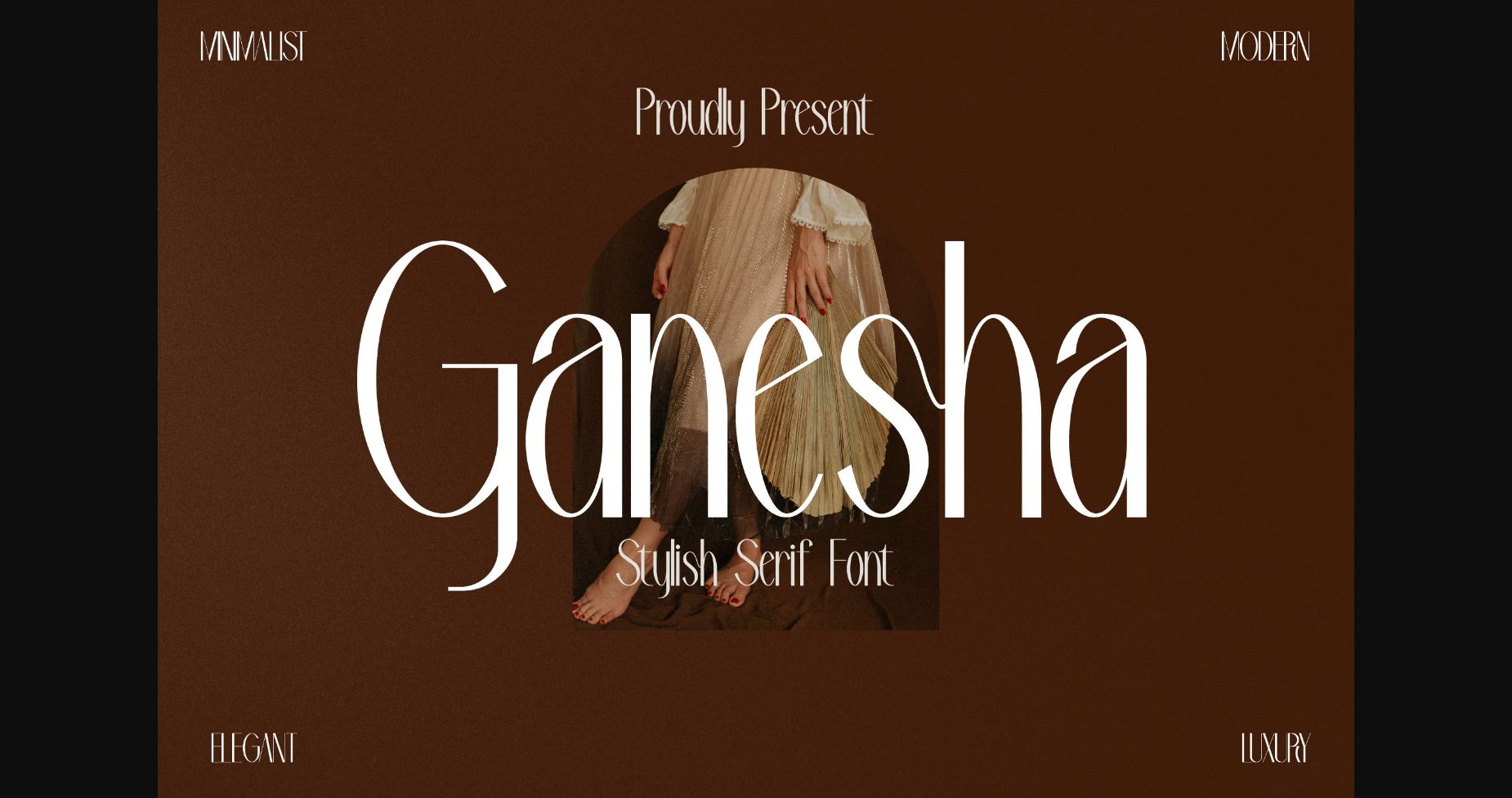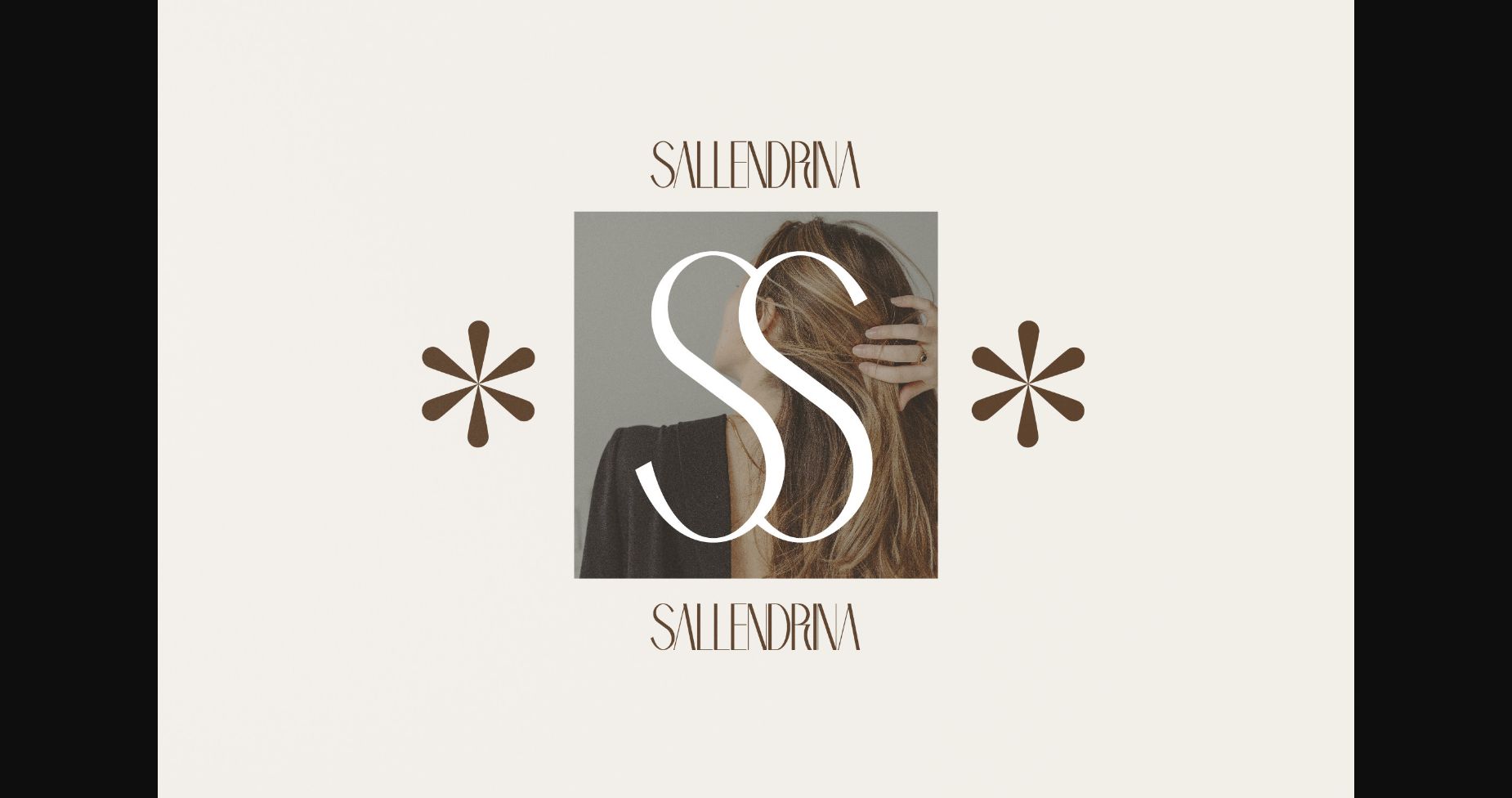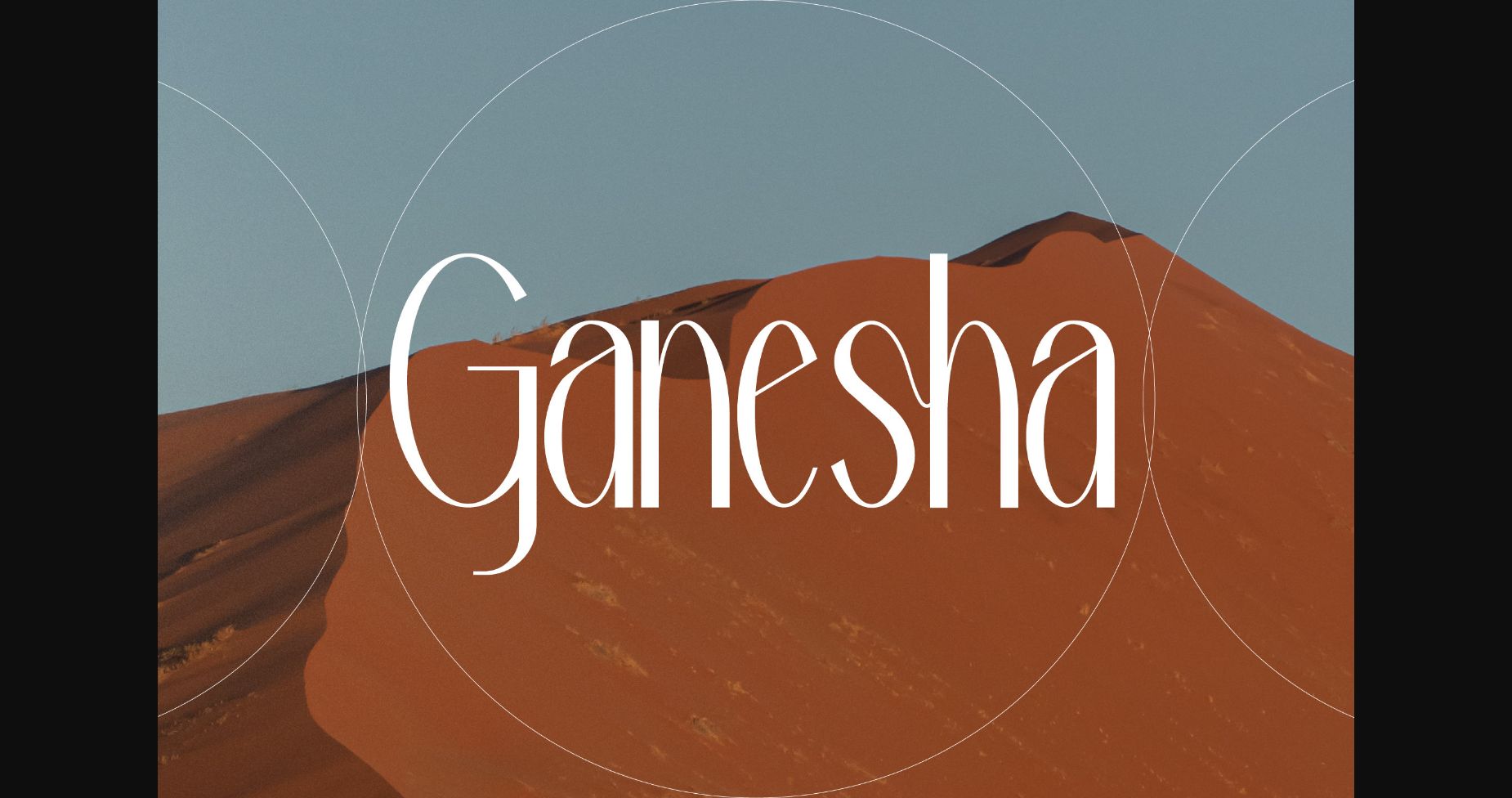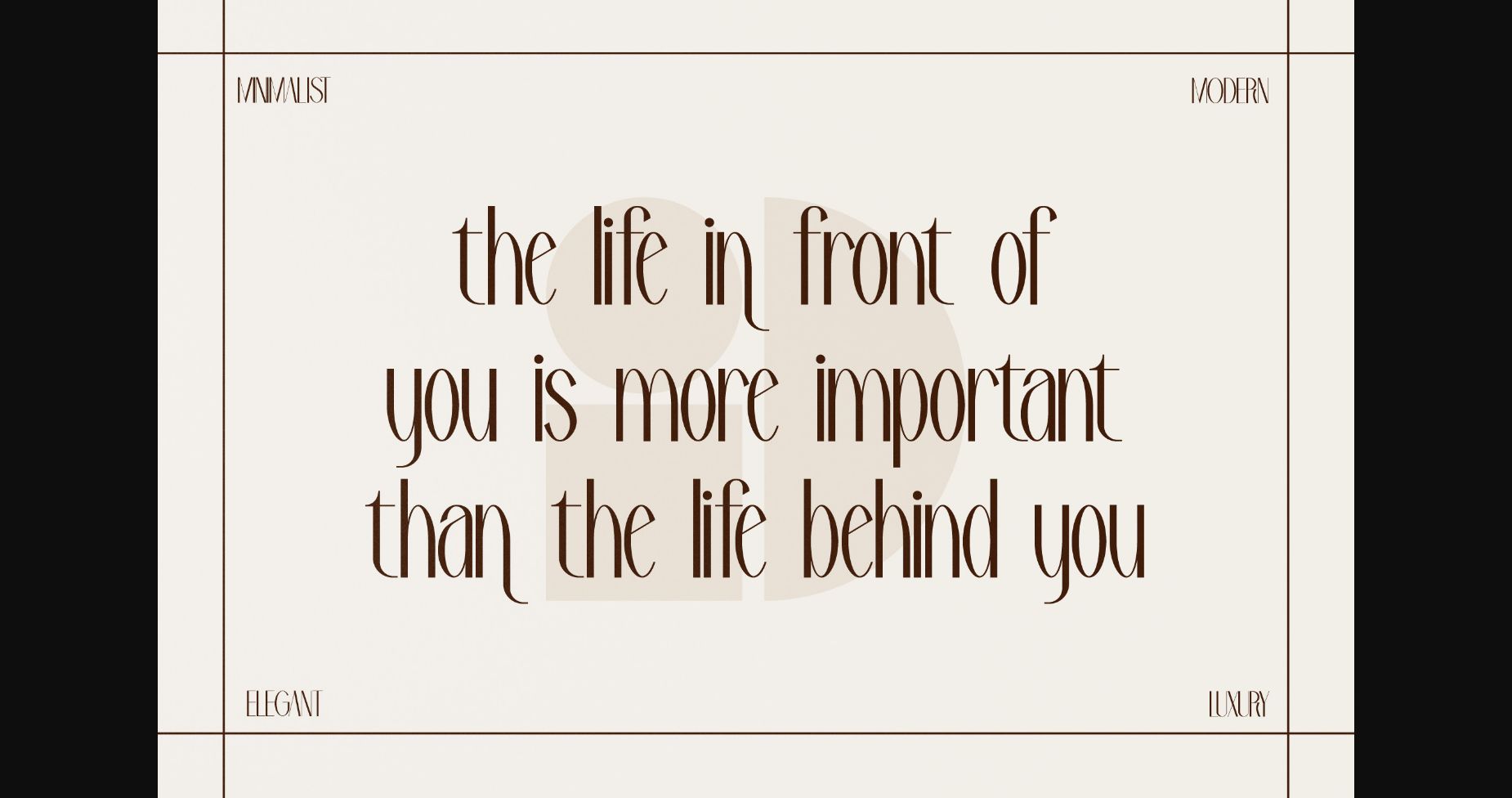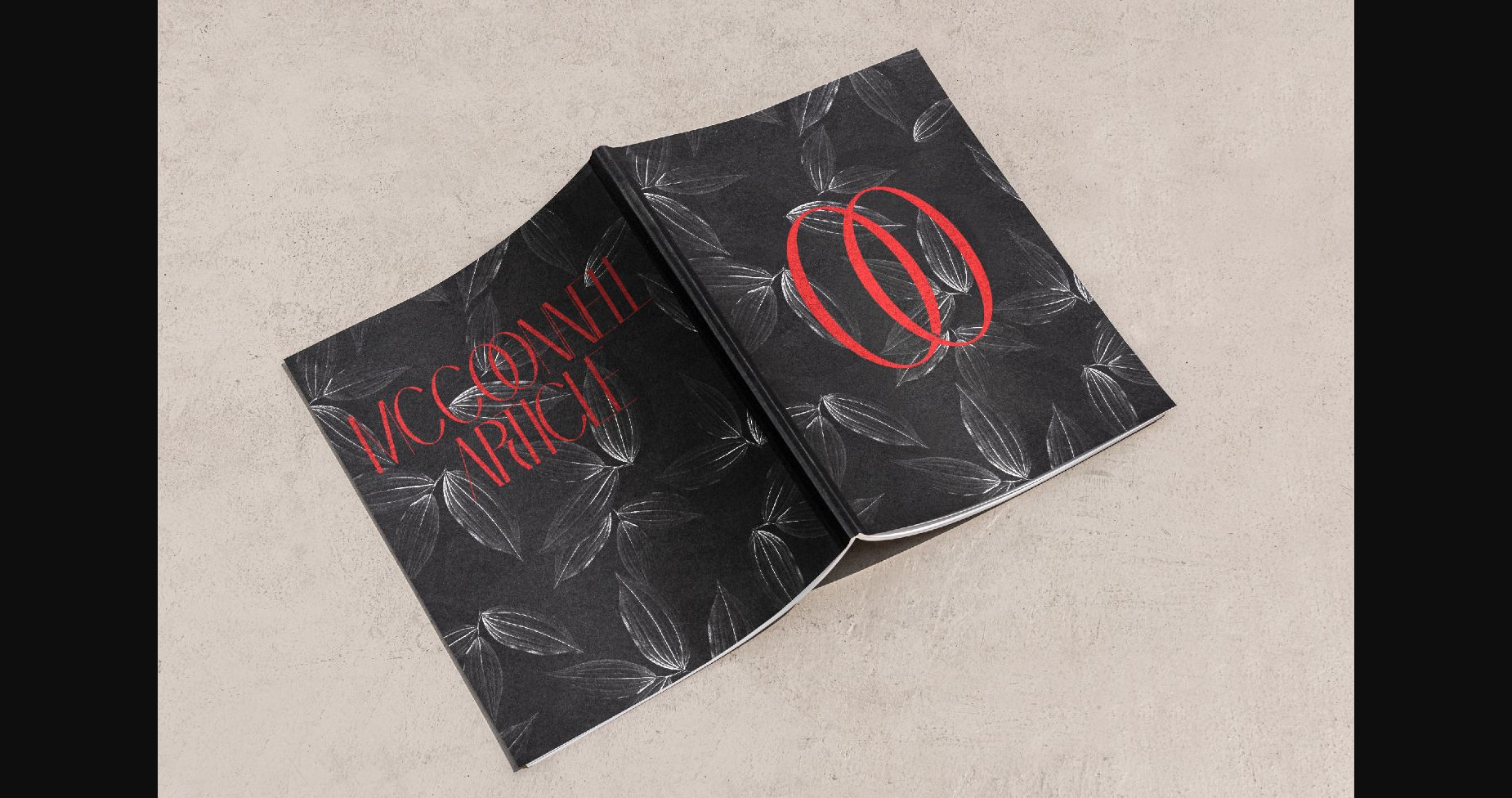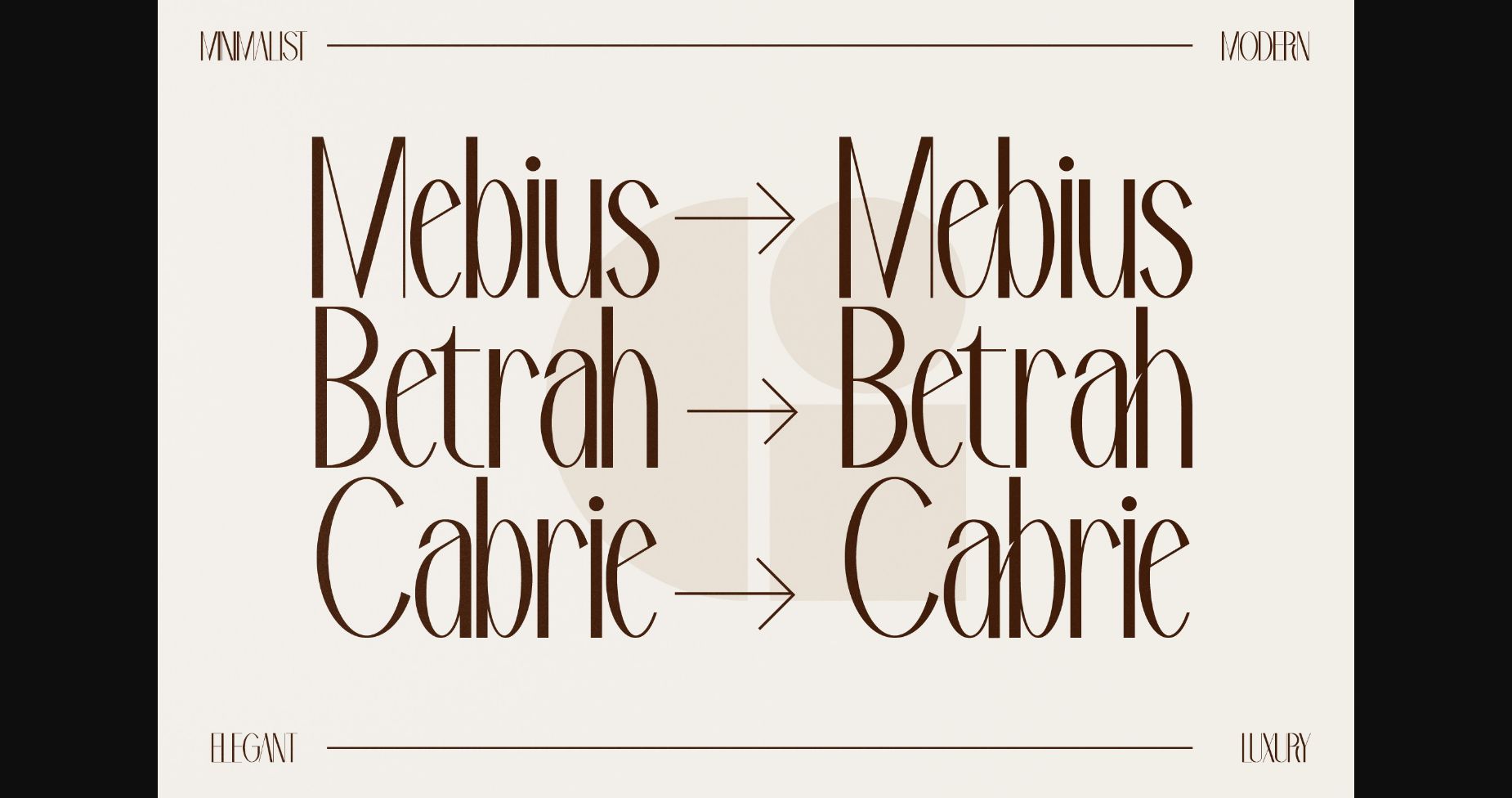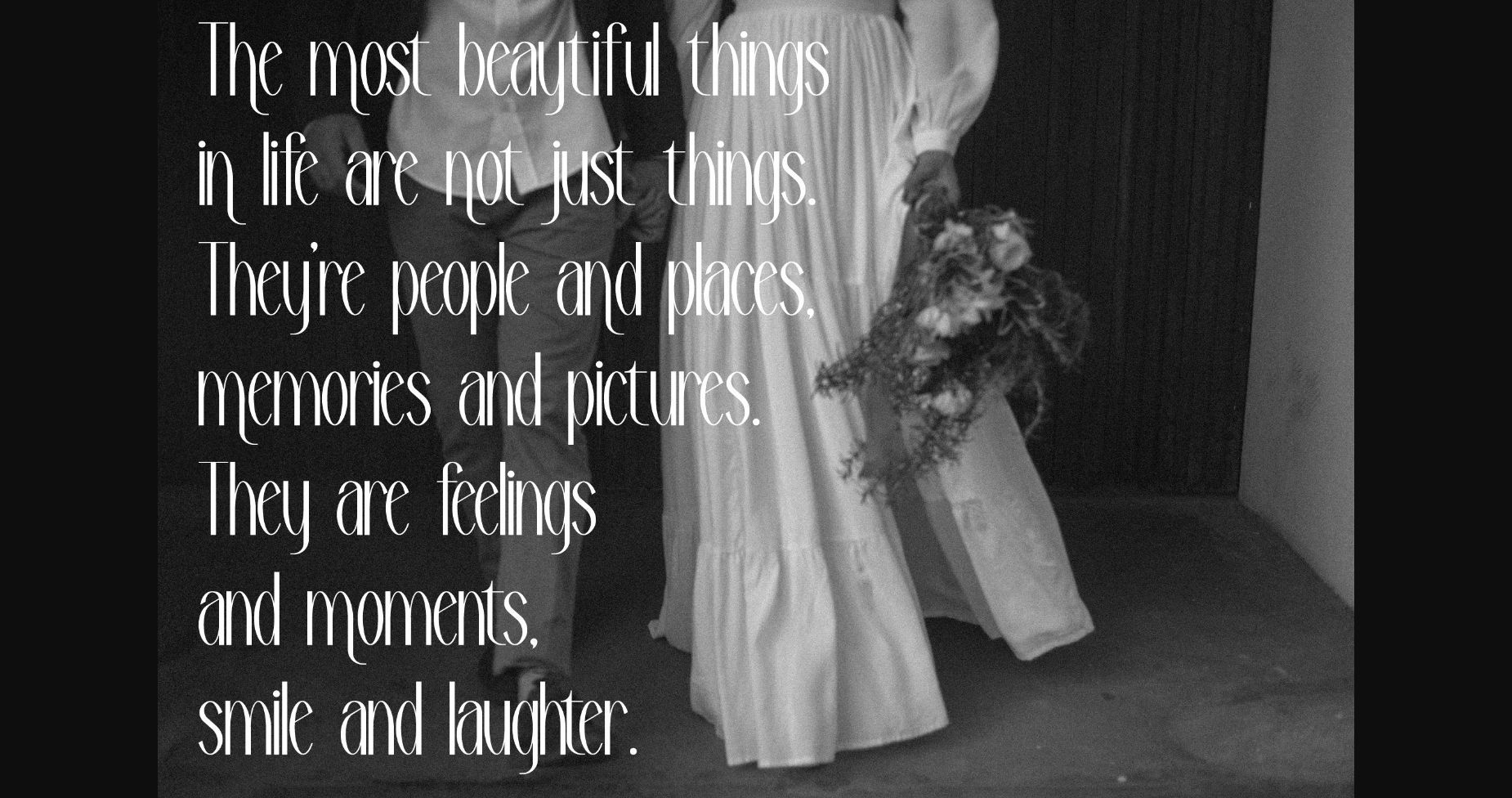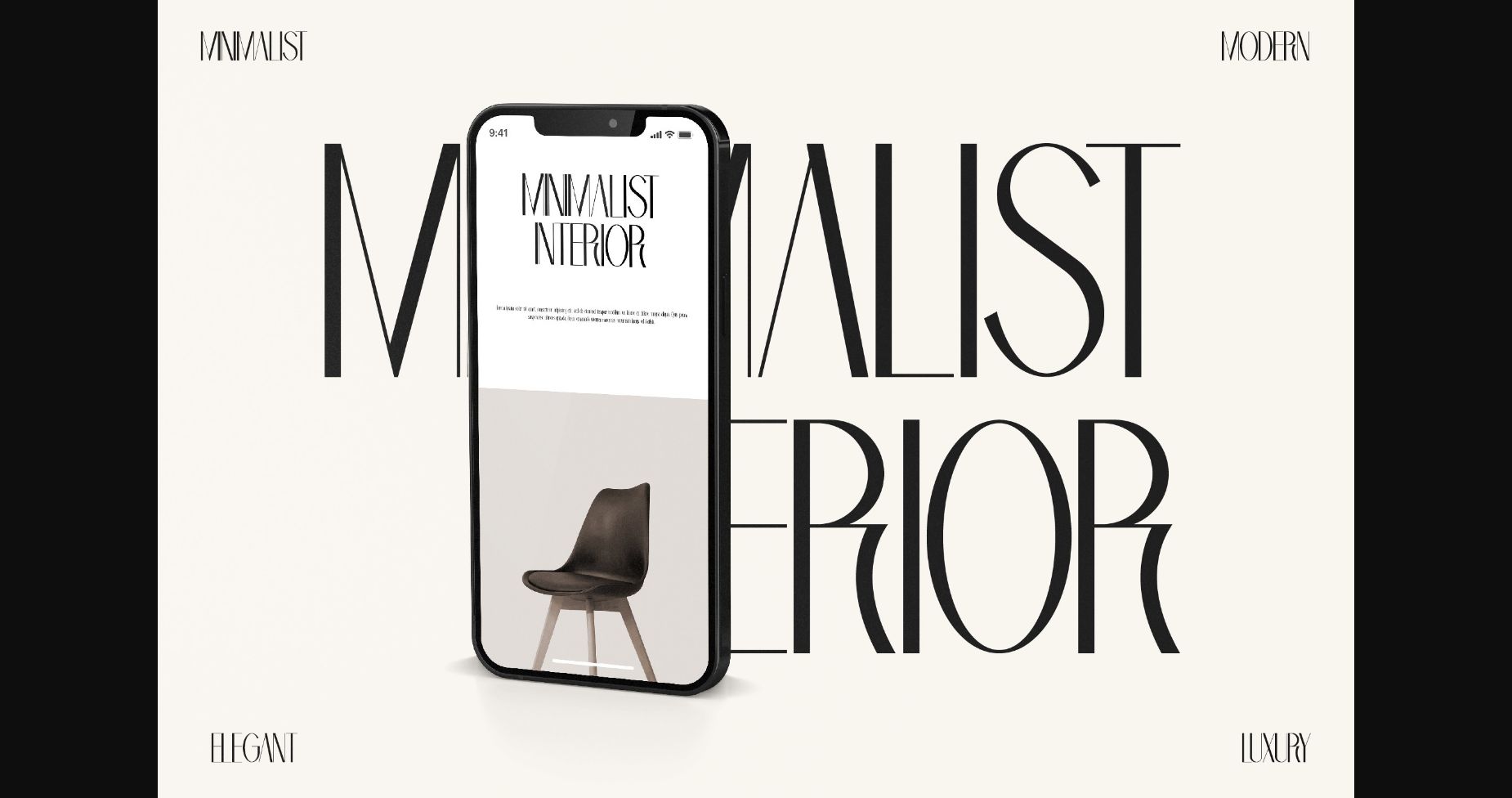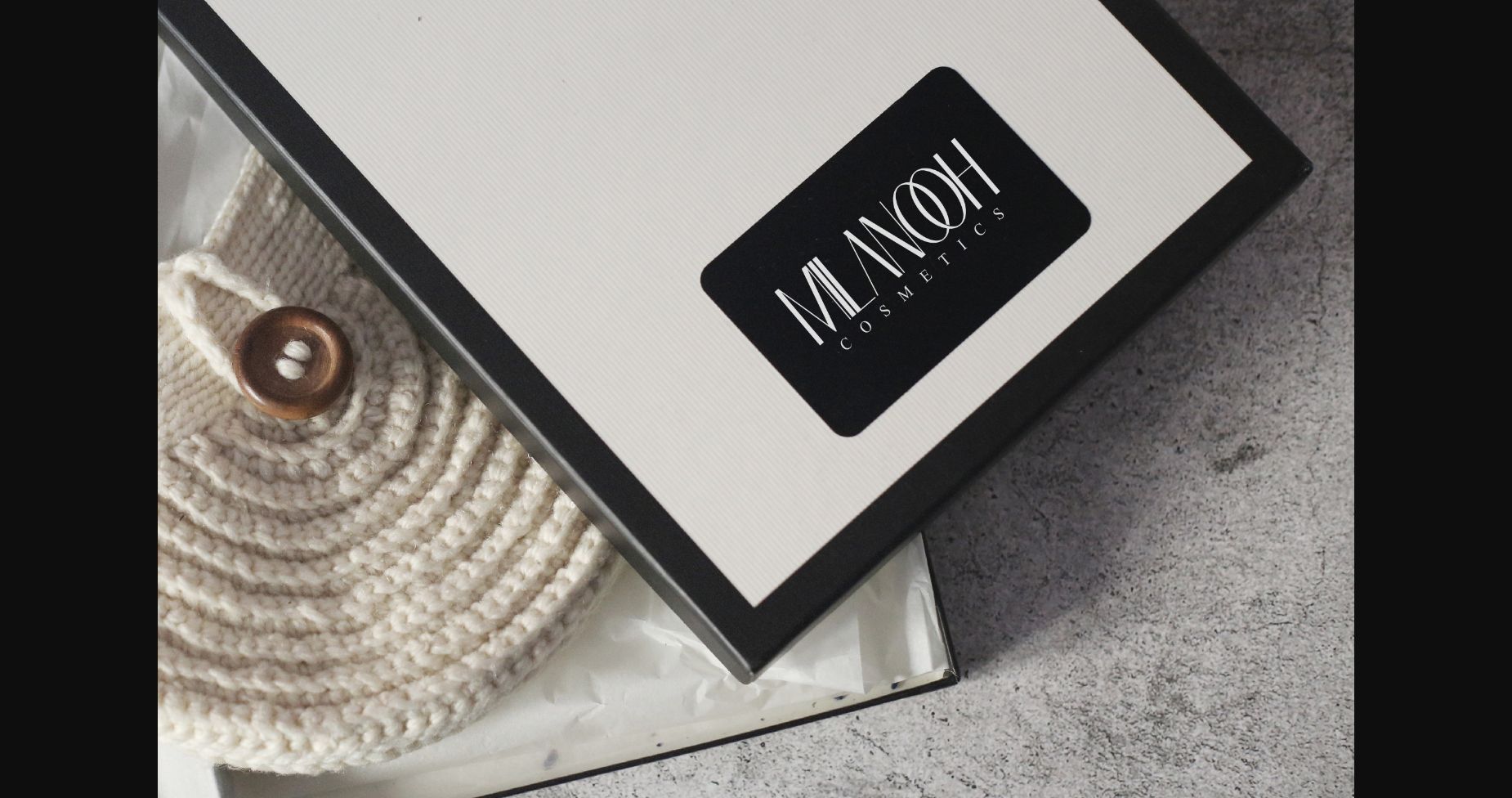
Ganesha Font
About Ganesha Font
Ganesha is a stylish and clean sans serif font.
This typeface is perfect for an elegant & luxury logo, book or movie title design, fashion brand, magazine, clothes, lettering, quotes, and so much more. It is PUA encoded which means you can access all of the glyphs and swashes with ease!